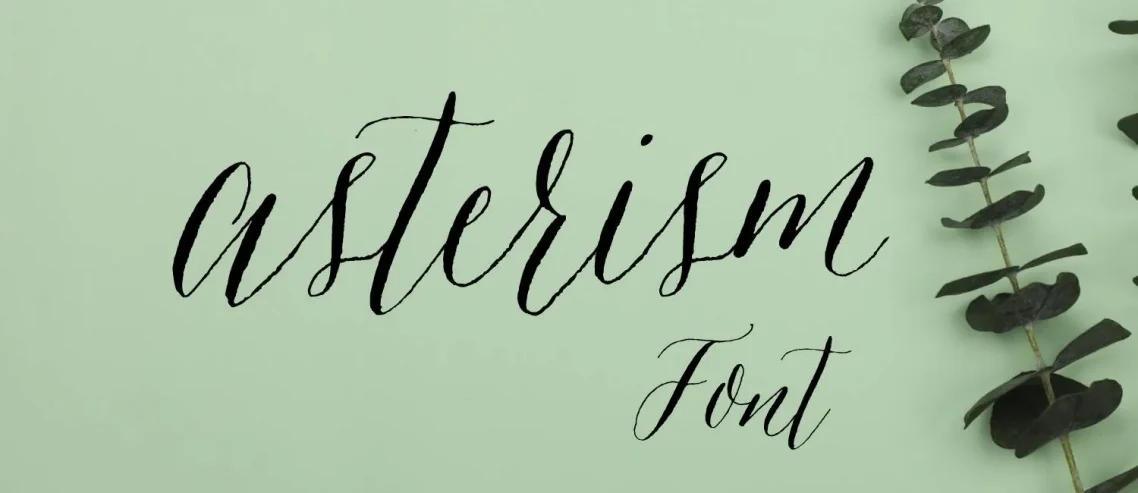
Asterism Font Free Download
Asterism Font is a display font that is inspired by the stars. It is perfect for headlines, posters, and other large-format text. The font includes both upper and lowercase letters, as well as numbers and punctuation. This Font is available in TTF format and works with both Windows and Mac operating systems. If you’re looking …